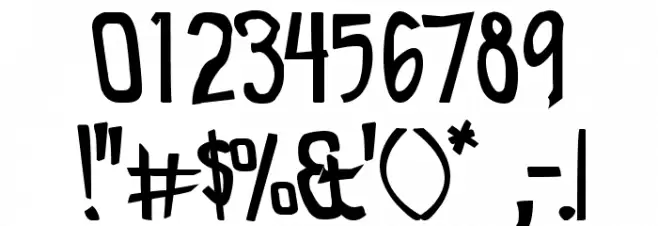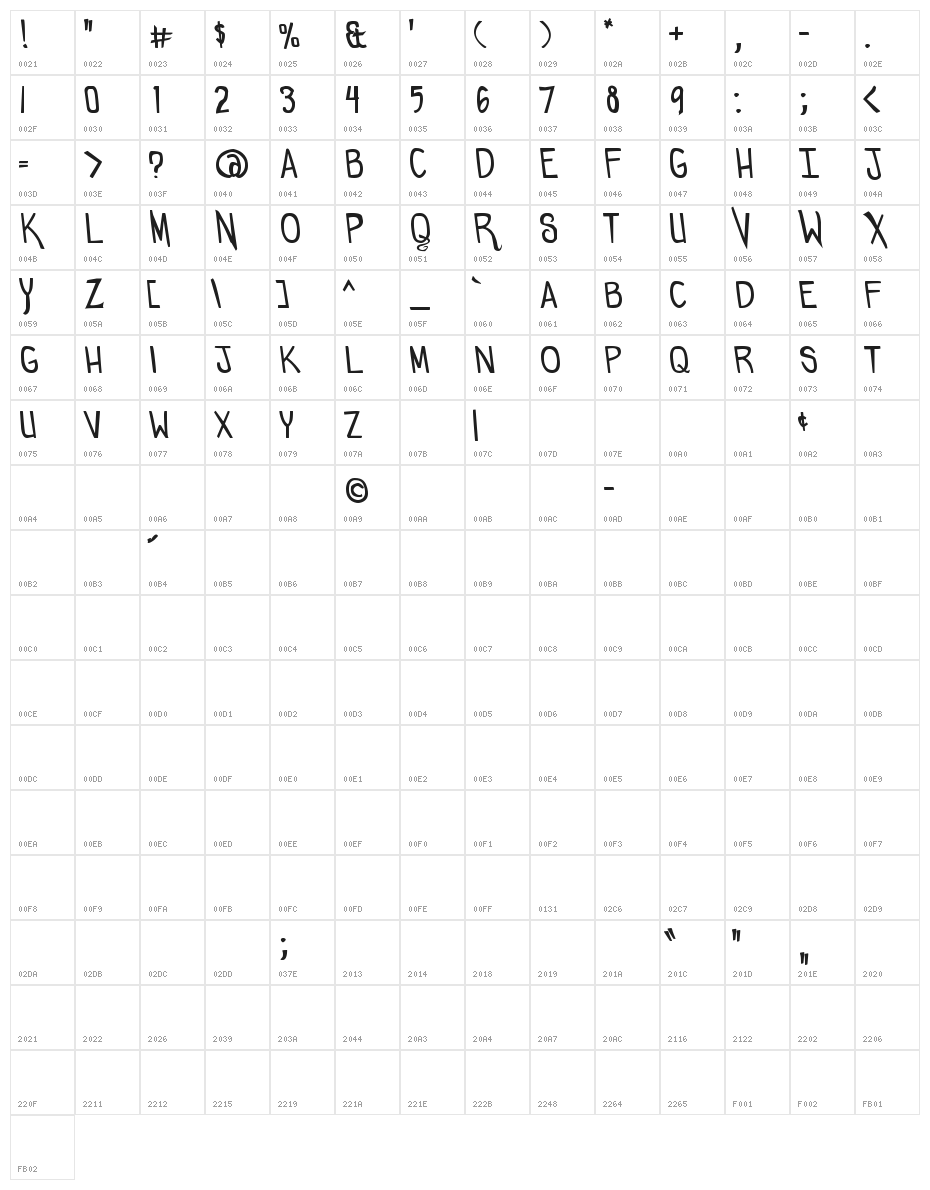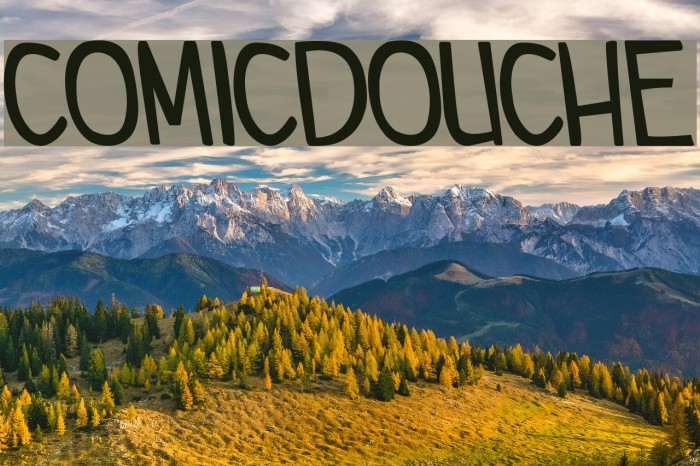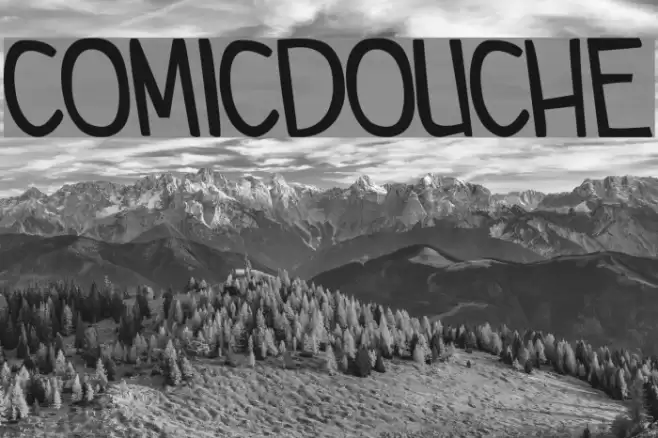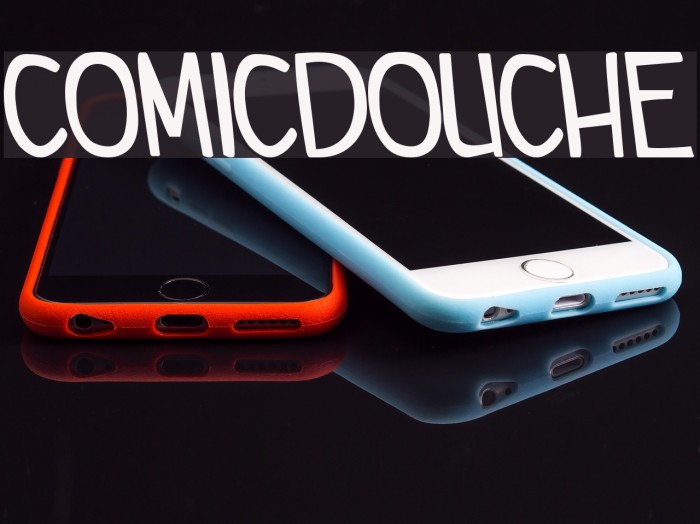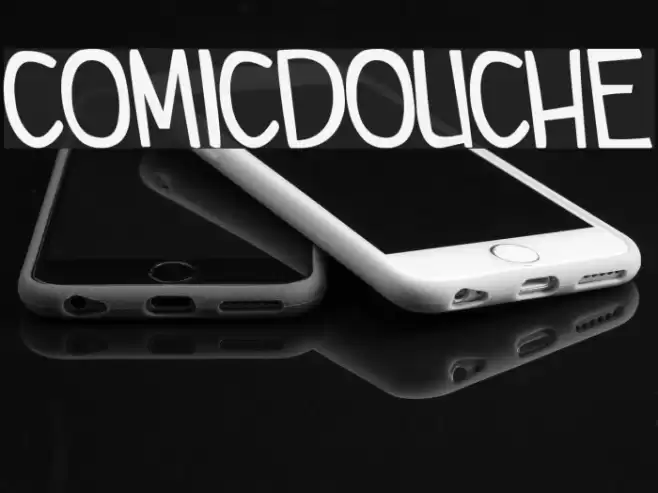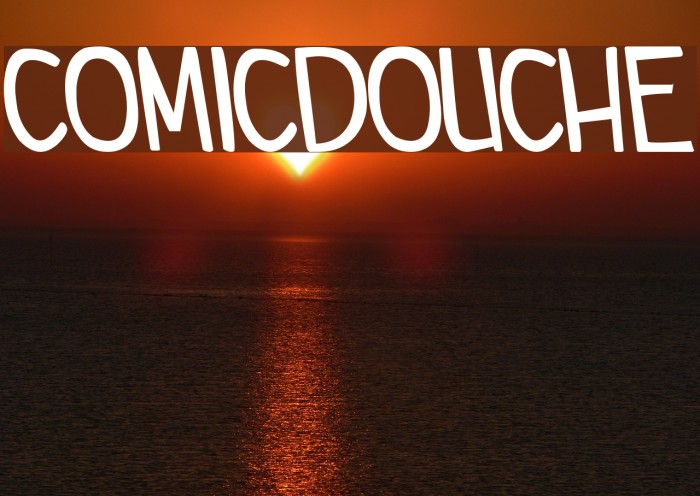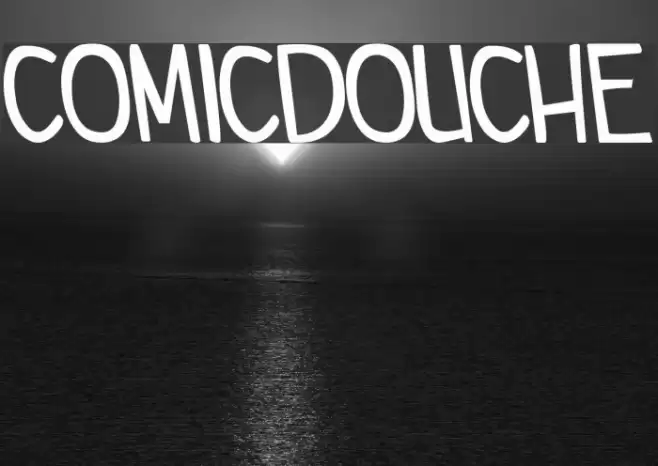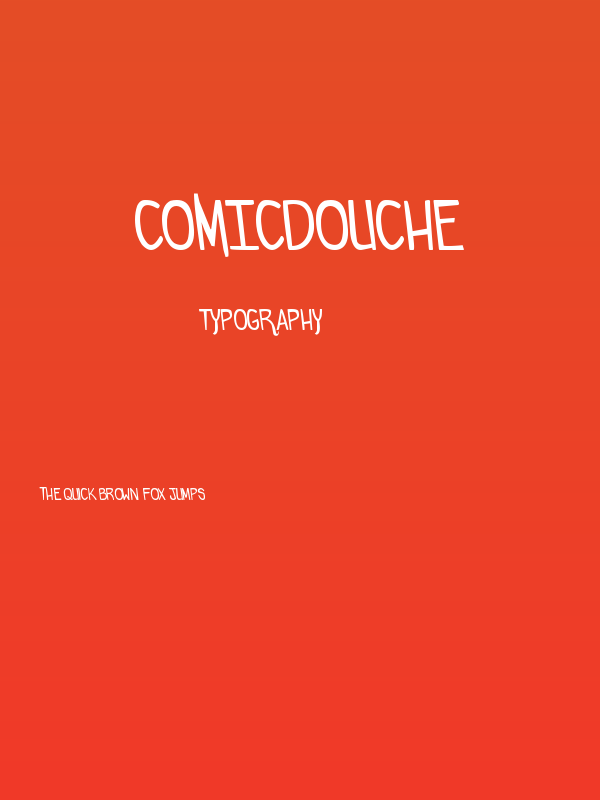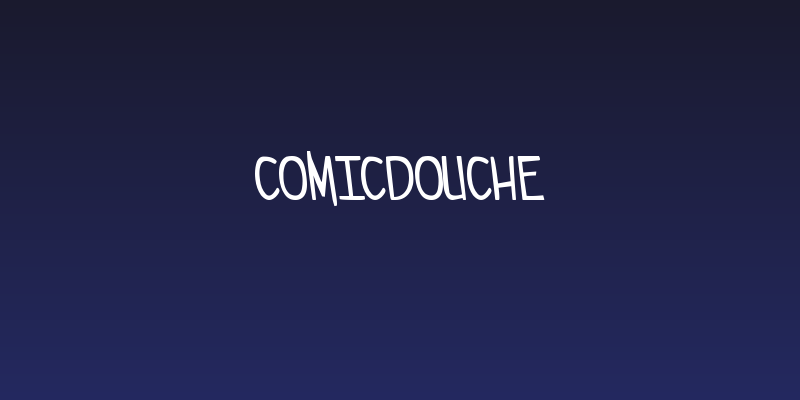
comicdouche Font
comicdouche Description
This font features a playful and informal style, reminiscent of handwritten comic book lettering. The characters are bold and slightly irregular, giving them a casual and approachable feel. The uppercase and lowercase letters maintain a consistent height, while the numbers and special characters are designed to match the overall whimsical aesthetic. The strokes are thick and uniform, contributing to a cohesive look across all characters. This font is ideal for projects that require a fun and lighthearted touch, such as children's books, comic strips, or playful branding.
| Overall Style | Playful, Informal |
| Proposed Projects | Ideal for comic books, children's literature, playful branding, and informal invitations. |